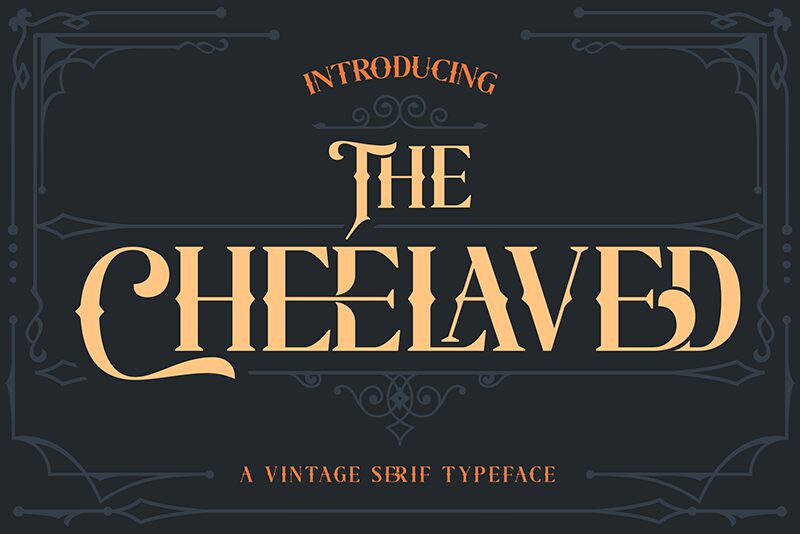
The Cheelaved
The Cheelaved is a vintage display font created by Almarkhatype Studio, designed by Adriansyah and Abdul Malik. It features an old-school, classic feel with ornate swirls and curves that give it a unique character. This font is perfect for adding a touch of nostalgia to any project, from posters and logos to website headers and titles. It also works great for creating eye-catching t-shirts or badges. Unleash your creativity with The Cheelaved!